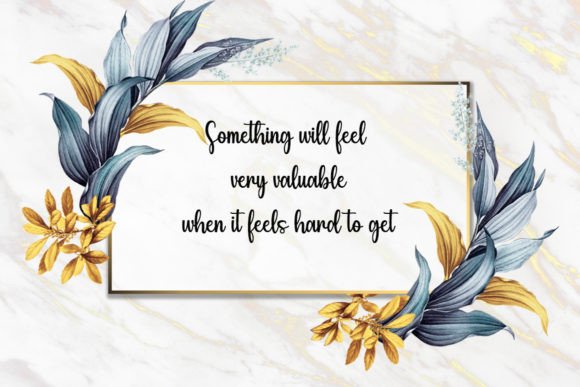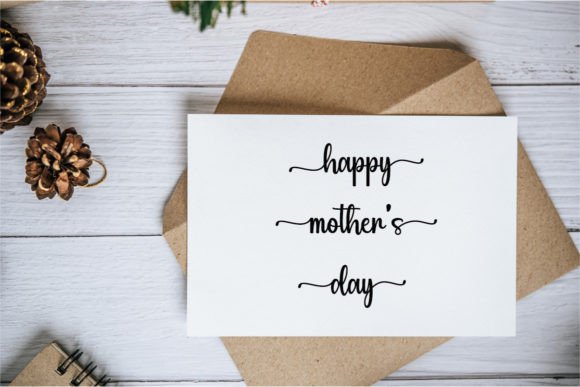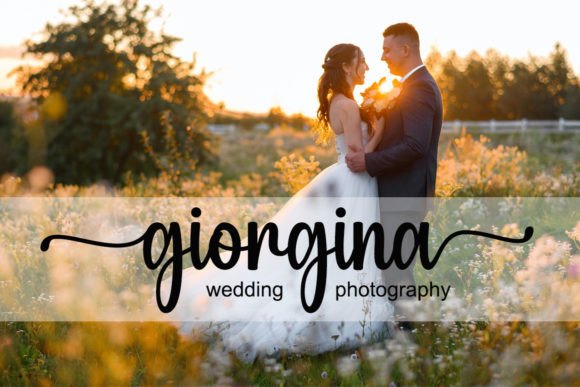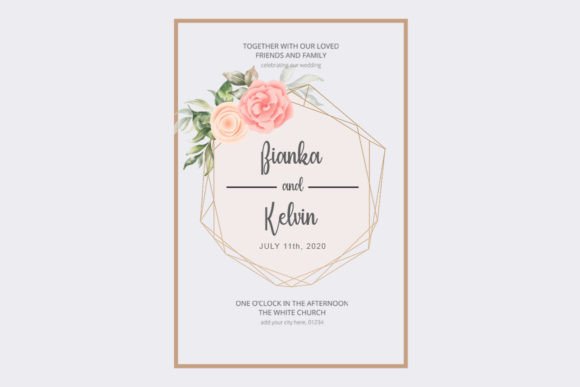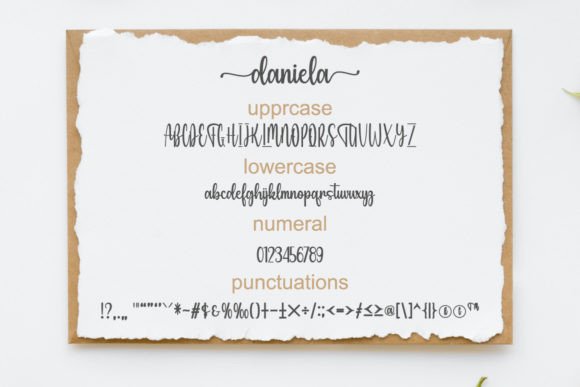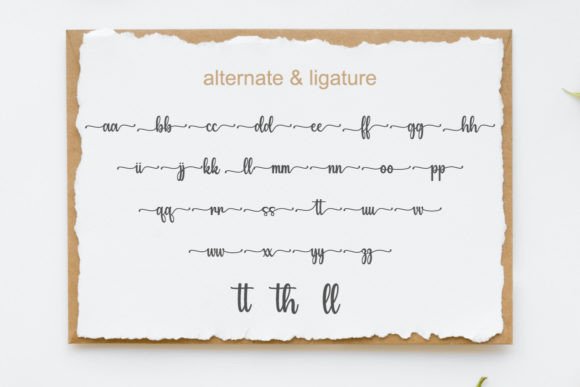
Daniela Font : An Enchanting Handwritten Font for Versatile Designs
Daniela is a captivating handwritten font that brings charm and elegance to a wide range of design projects. This versatile typeface is perfect for various applications, from creating heartfelt greeting cards to crafting eye-catching headlines.
Key Features of Daniela Font
- Enchanting Handwritten Style: Adds a personal and elegant touch to your designs
- PUA Encoding: Easy access to all glyphs and swashes for enhanced creativity
- Versatile Application: Suitable for greeting cards, headlines, and more
Perfect for Multiple Design Projects
Daniela’s adaptability makes it an excellent choice for:
- Greeting card designs
- Eye-catching headlines and titles
- Social media graphics
- Branding materials for creative businesses
- Personal stationery and invitations
Enhancing Creative Expression
With Daniela, you can infuse your designs with a sense of personal touch and elegance. Its handwritten style adds authenticity to your projects, making them more engaging and relatable to your audience.
Digital and Print Versatility
Whether you’re creating digital designs or print materials, Daniela maintains its charm and readability. Use it for:
- Engaging blog post titles
- Attractive email headers
- Stylish product packaging
- Memorable logo designs
Customization Options
Daniela’s PUA encoding allows for easy access to all glyphs and swashes, giving you the freedom to customize your text and create unique typographic designs. This feature empowers you to craft designs that perfectly align with your creative vision.
Daniela is more than just a font; it’s a creative tool that brings enchantment and versatility to your design projects. Its handwritten style inspires designs that resonate with authenticity and elegance. By incorporating Daniela into your designs, you can create visually appealing and memorable content that engages your audience. Whether you’re a professional designer or someone looking to add a personal touch to projects, Daniela offers the perfect blend of charm and functionality. Consider pairing Daniela with clean sans-serif fonts for contrast or complementing it with other script fonts for a dynamic typographic palette. This versatility allows you to create designs that are both enchanting and harmonious across various mediums and industries. Embrace the captivating charm of Daniela today and watch as it transforms your creative ideas into elegant and engaging designs. With its easy-to-use PUA encoding and wide range of applications, Daniela is sure to become a valuable asset in your font collection!